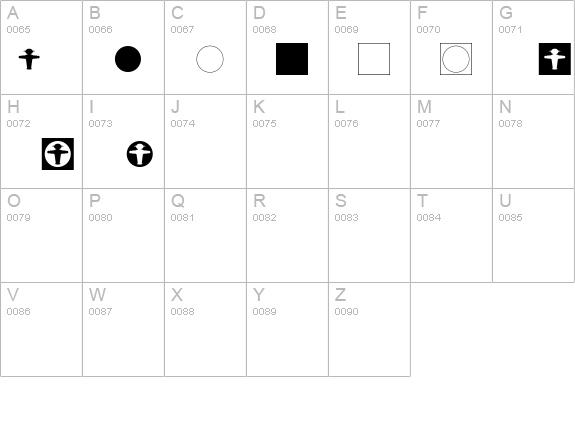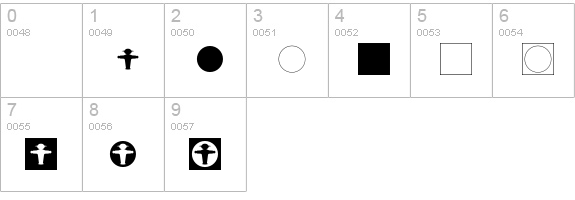
The Ampelmaennchen font is a charming and playful typeface that captures the spirit of the iconic East German pedestrian traffic light figures. With its quirky and distinctive design, Ampelmaennchen adds a touch of nostalgia and whimsy to any project. This unique font is perfect for creating eye-catching headlines, posters, and branding materials that stand out from the crowd. Best of all, the Ampelmaennchen font is completely free to download at FontsMarket.com. Whether you're a designer looking to add a touch of retro flair to your work or just a fan of these beloved traffic light characters, Ampelmaennchen is sure to delight and inspire. Download this delightful font today and let your creativity shine with Ampelmaennchen!